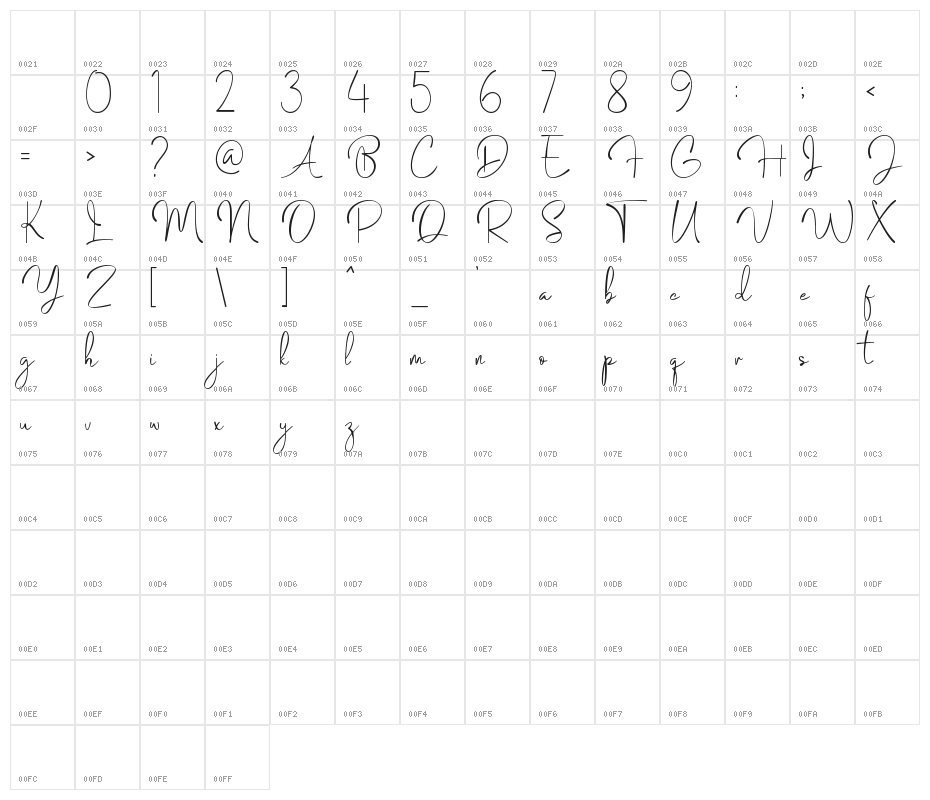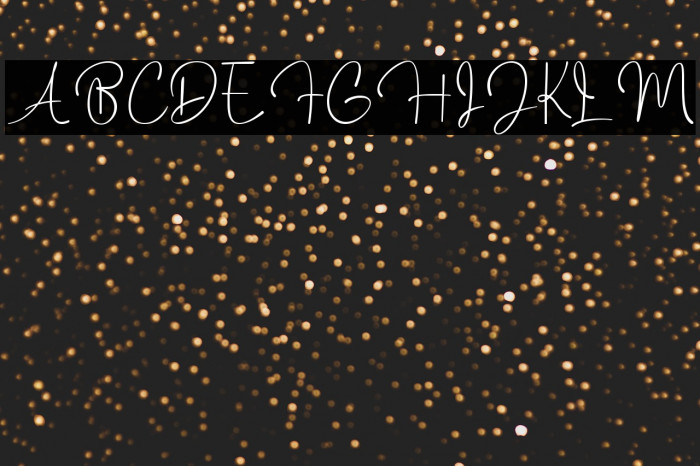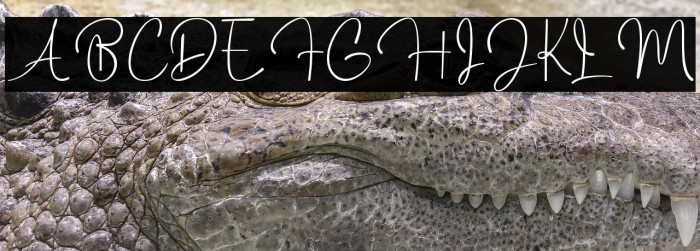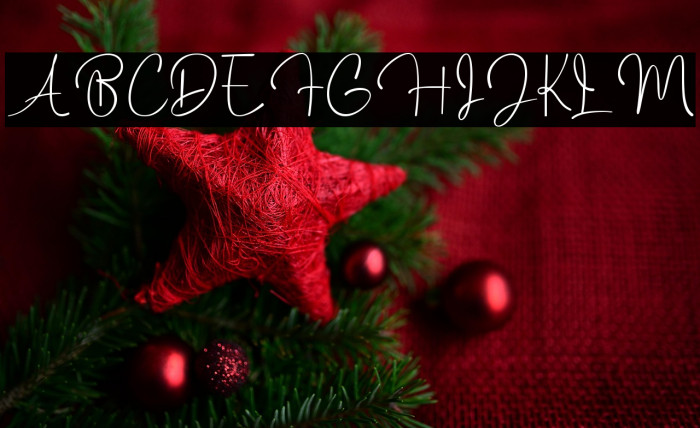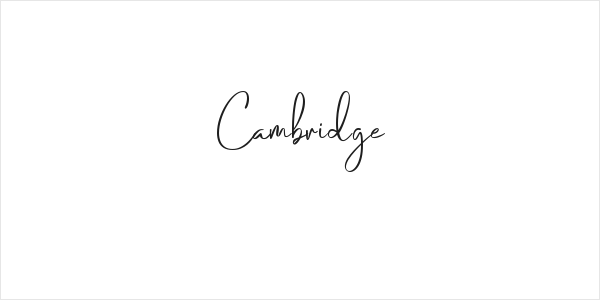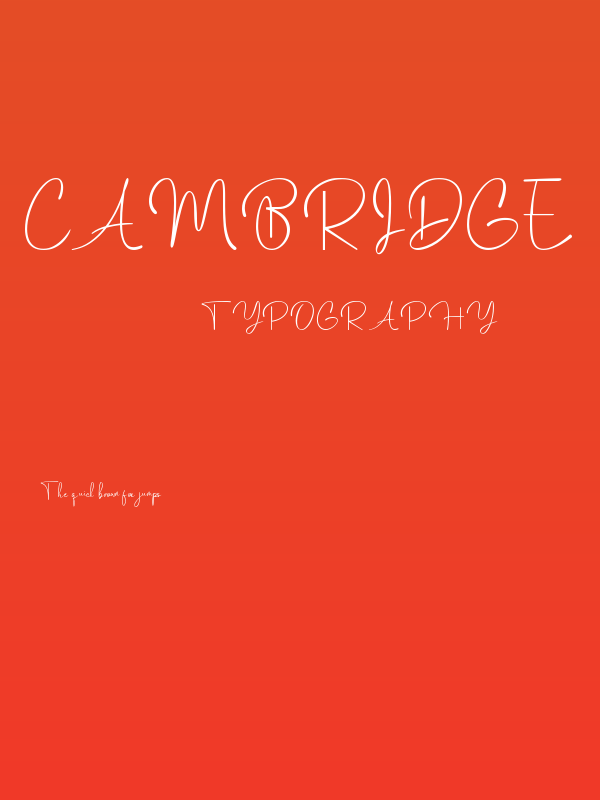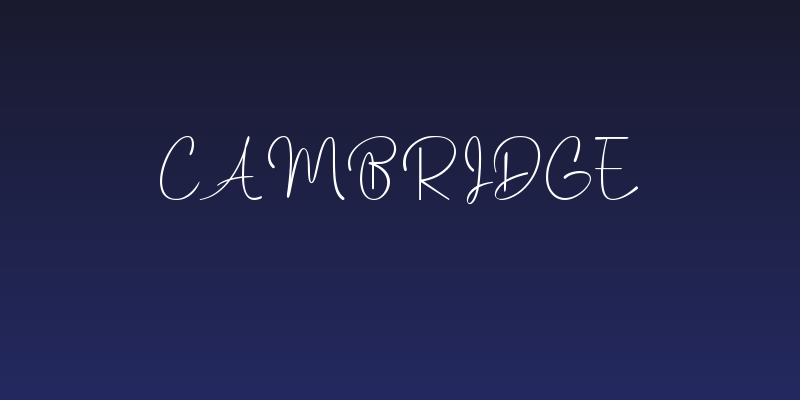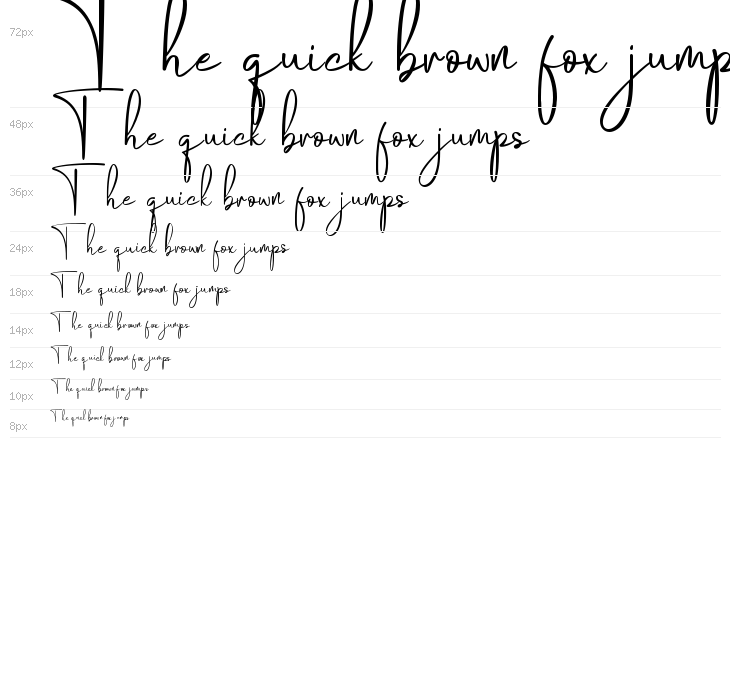
Cambridge Font
Cambridge Description
This font features an elegant and flowing script style, characterized by its smooth, continuous strokes and graceful curves. The uppercase letters are distinctively tall and slender, with a slight slant that adds a touch of sophistication. The lowercase letters maintain a consistent flow, enhancing readability while preserving the font's artistic flair. The numerals are clean and straightforward, complementing the overall aesthetic. Special characters are seamlessly integrated, maintaining the font's cohesive look. This font exudes a sense of elegance and creativity, making it suitable for a variety of design projects.
| Proposed Projects | Ideal for wedding invitations, branding, greeting cards, and elegant logo designs. |